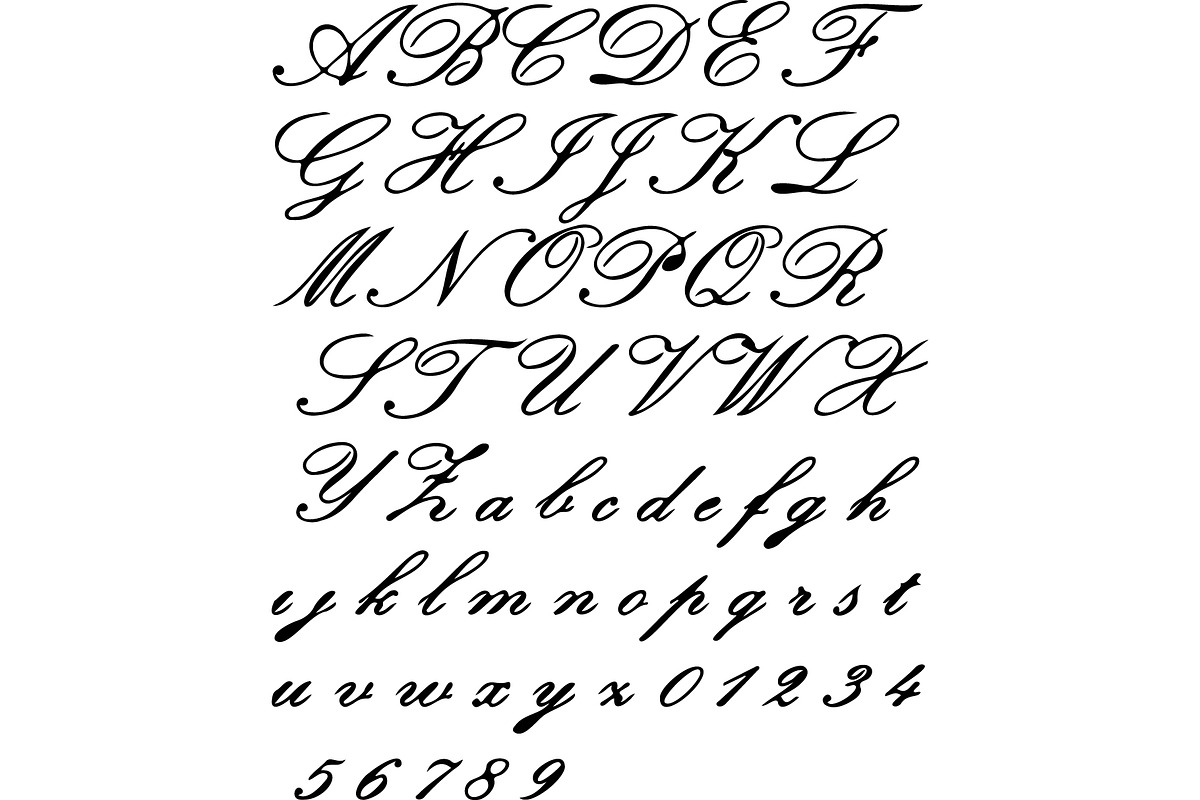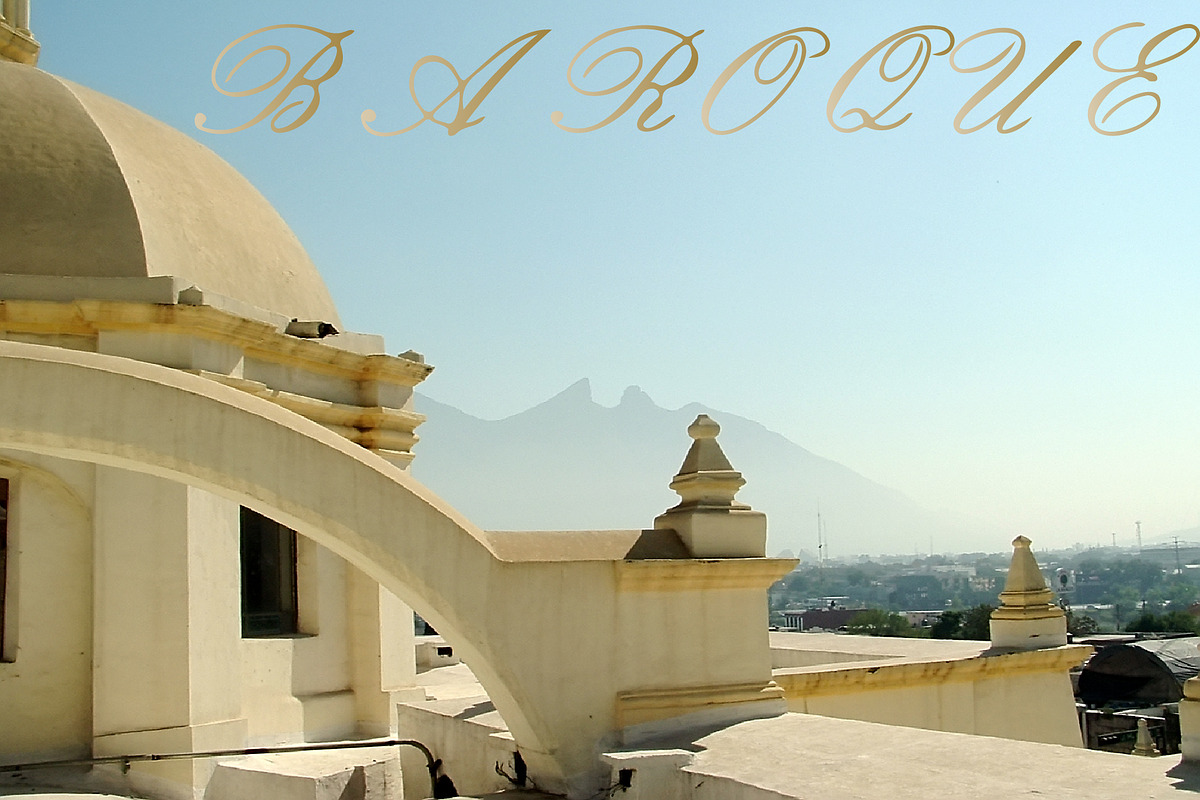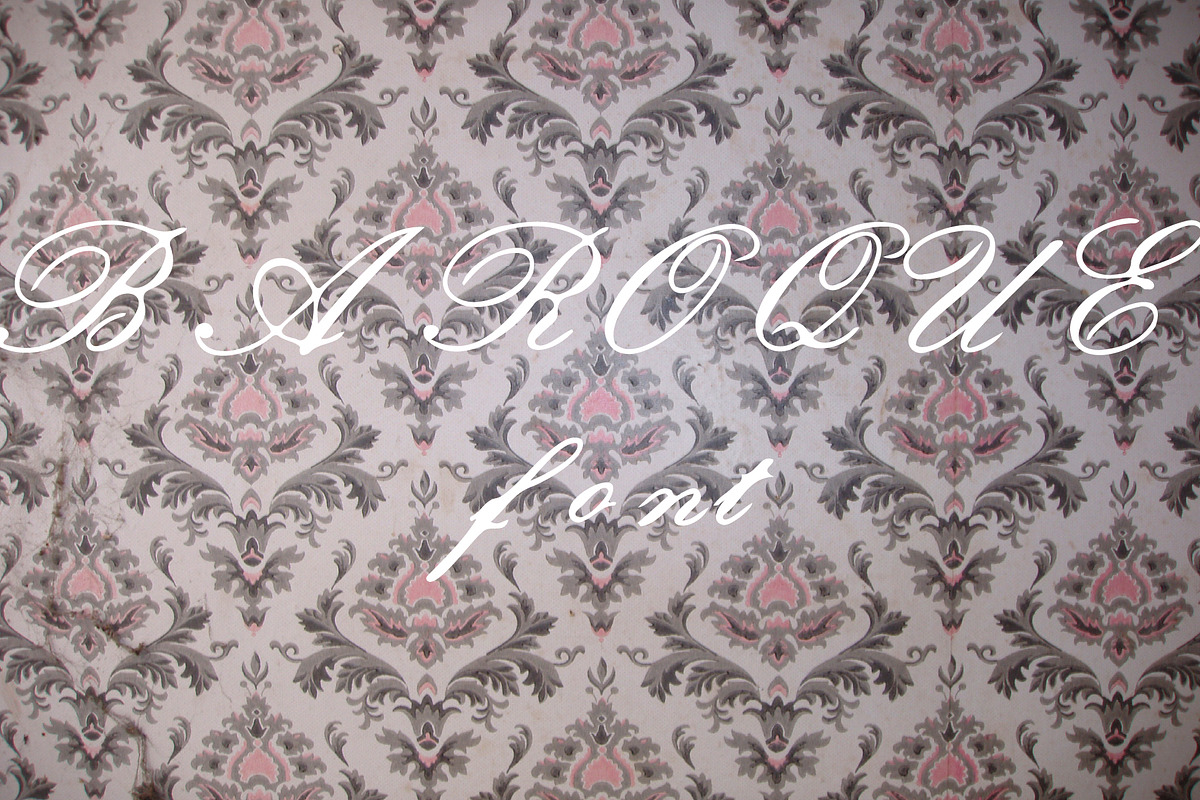
Baroque Komaiza
Komaiza is a chic and distinct script font. No matter the topic, this font will be an incredibly asset to your fonts’ library, as it has the potential to elevate any creation. Bonus File : ai project of the font